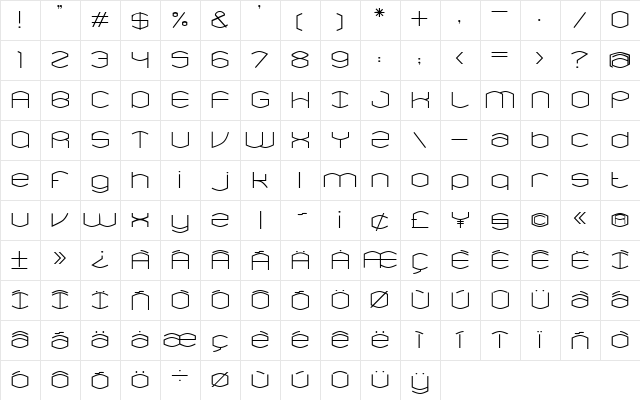
TG Ned Regula
Design Context for TG Ned Typeface
TG Ned offers clean, dependable letterforms without strong stylistic allegiance, making it a practical choice for designers who need flexibility.
Pro Tip: Use TG Ned in both headline and body roles to test its range before committing to a single application.